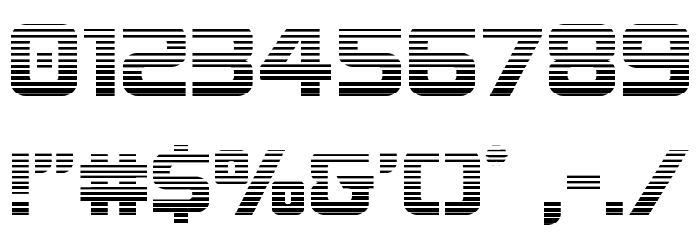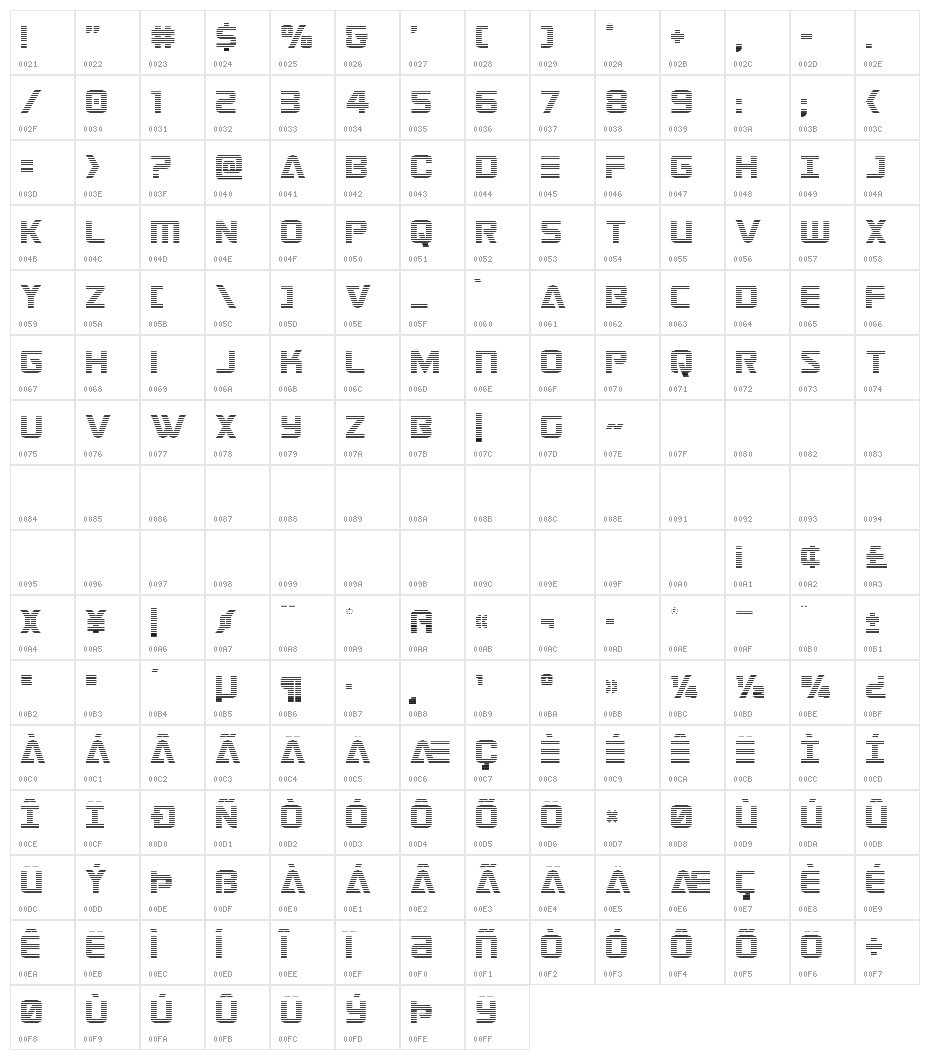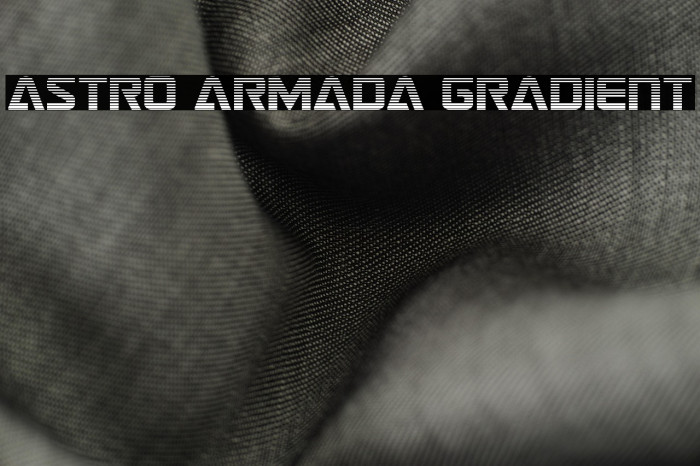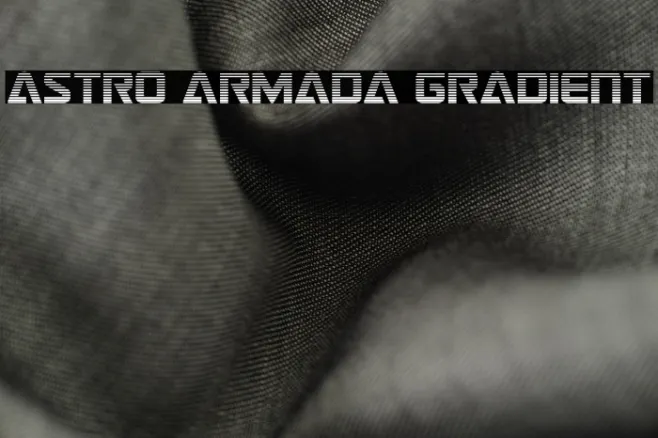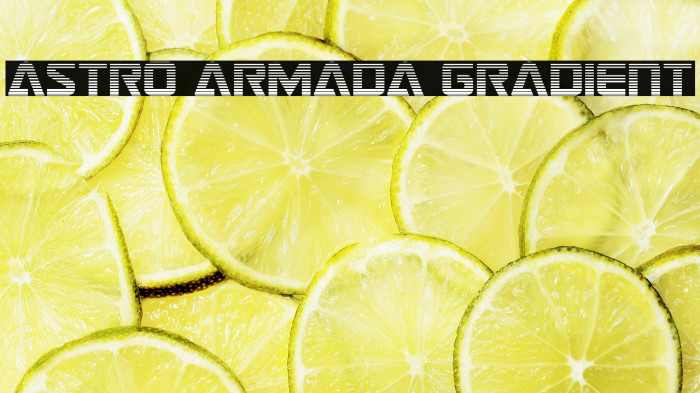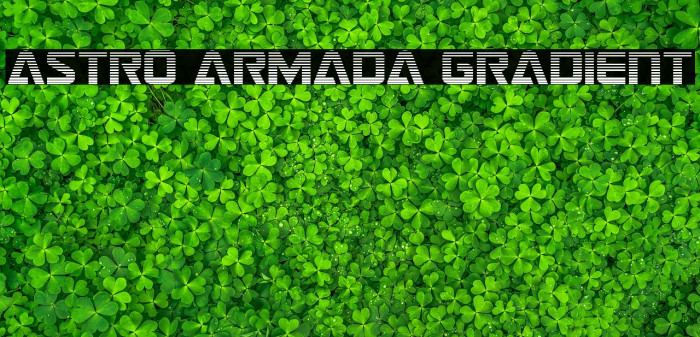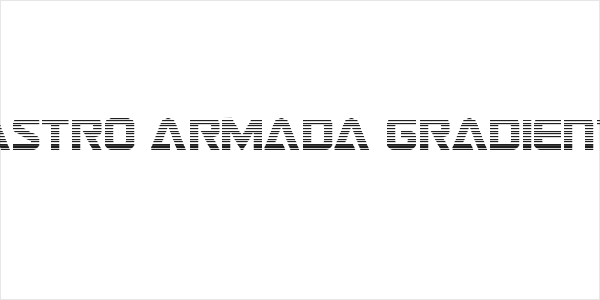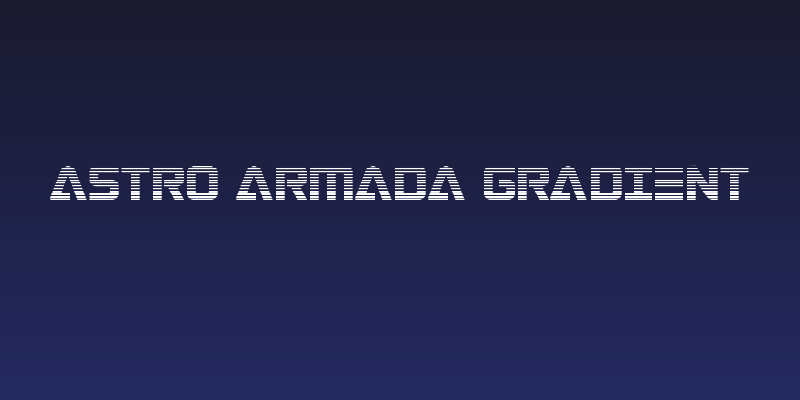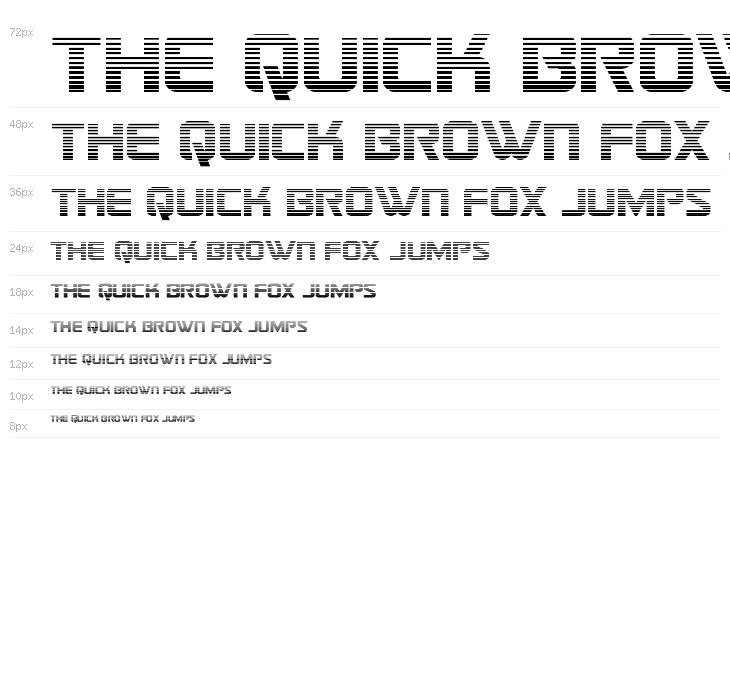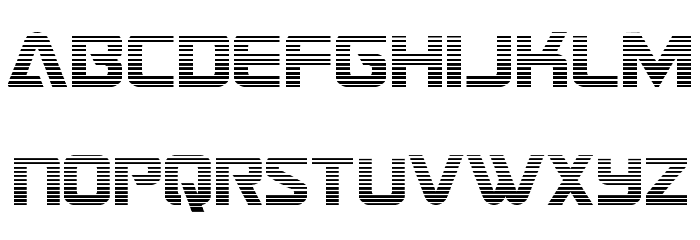
Astro Armada Gradient Font
Astro Armada Gradient Description
This font features a futuristic and bold design with a distinct gradient effect created by horizontal lines. Each character is constructed with a series of parallel lines that give it a dynamic, high-tech appearance. The uppercase and lowercase letters maintain a consistent style, emphasizing geometric shapes and sharp angles. The numerals and special characters follow the same design principles, ensuring uniformity across the entire character set. This font is ideal for projects that require a modern and eye-catching aesthetic, such as technology branding, sci-fi themed designs, or digital media.
| Proposed Projects | Ideal for technology branding, sci-fi themed designs, digital media, and futuristic posters. |